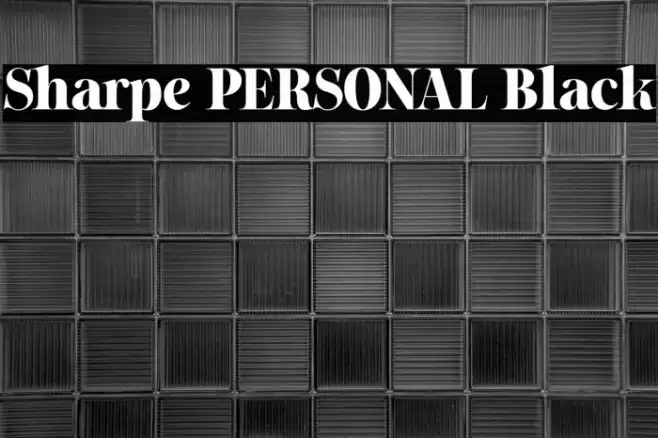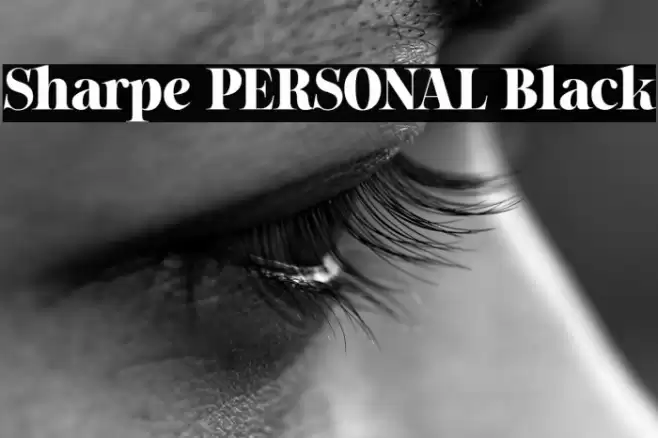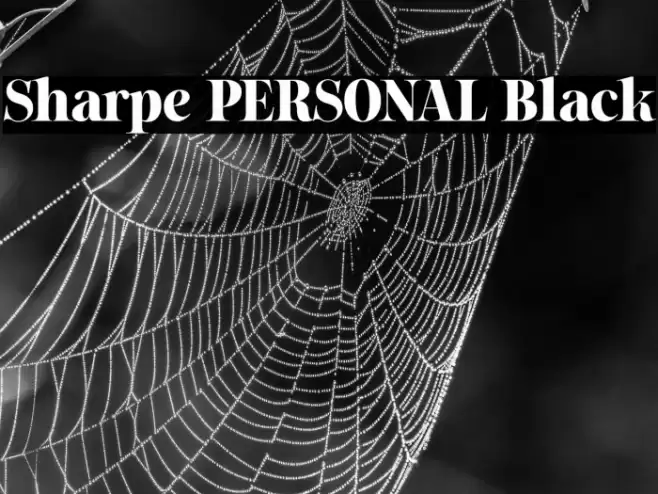
Sharpe PERSONAL Black Font
Sharpe PERSONAL Black Description
This font features a bold and striking design with high contrast between thick and thin strokes, giving it a dramatic and impactful appearance. The serifs are pronounced, adding a touch of elegance and sophistication. The uppercase letters are tall and commanding, while the lowercase letters maintain a consistent style that complements the overall aesthetic. The numerals are clear and distinct, ensuring readability. Special characters are designed with the same attention to detail, making them stand out. This font is ideal for making a strong visual statement.
A bold, high-contrast serif font with dramatic strokes and elegant serifs from Uncategorized fonts.
- Proposed Projects: Ideal for branding, headlines, posters, and editorial design where a strong visual impact is desired.